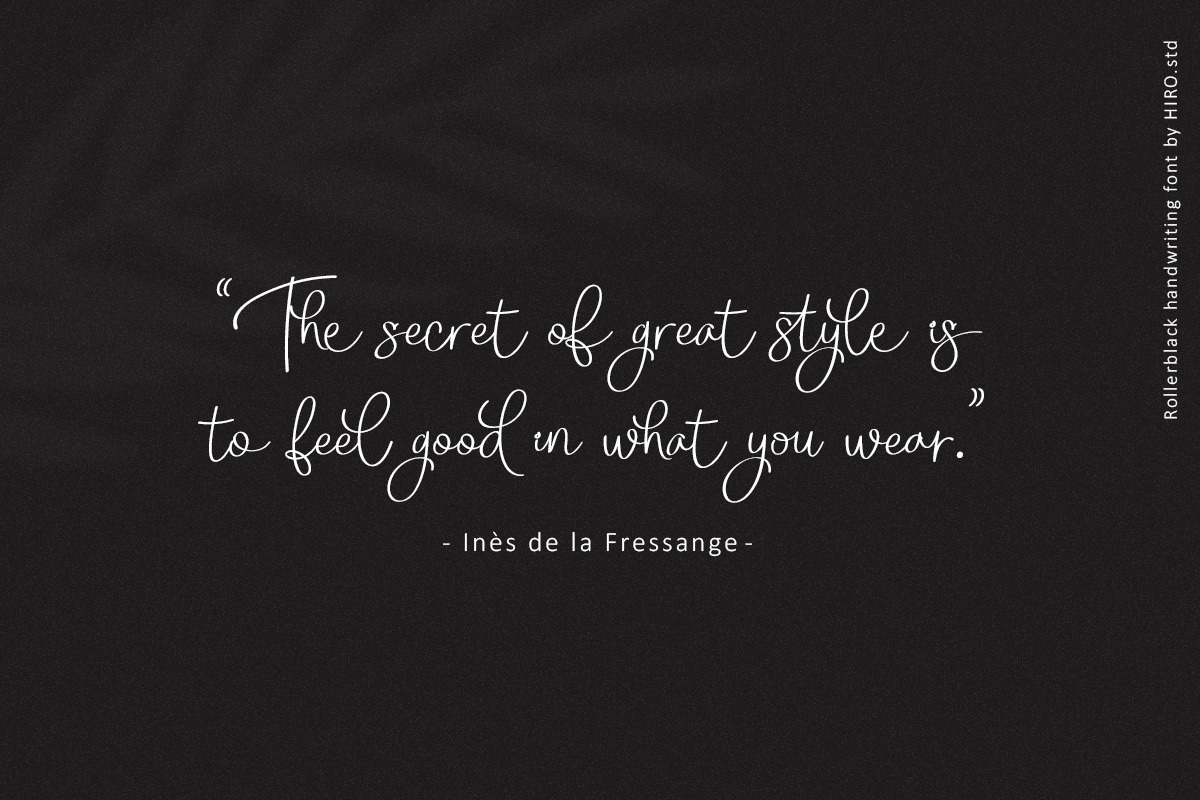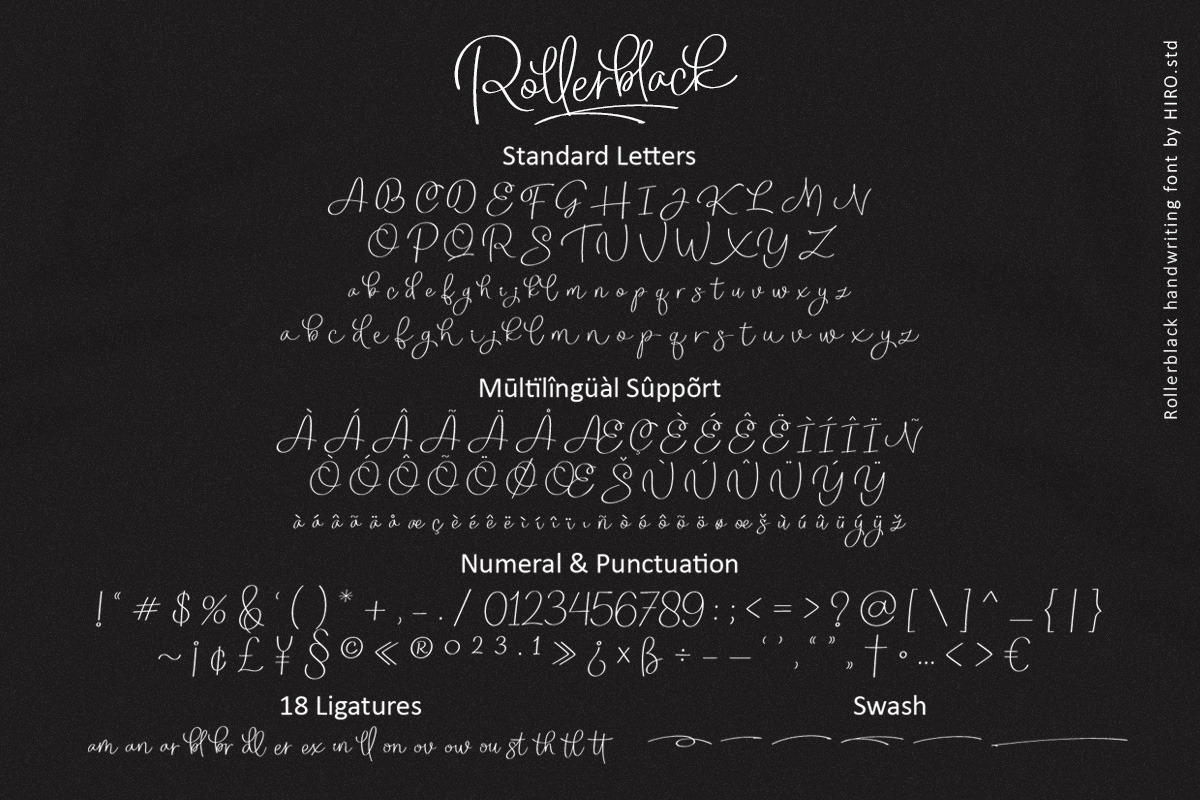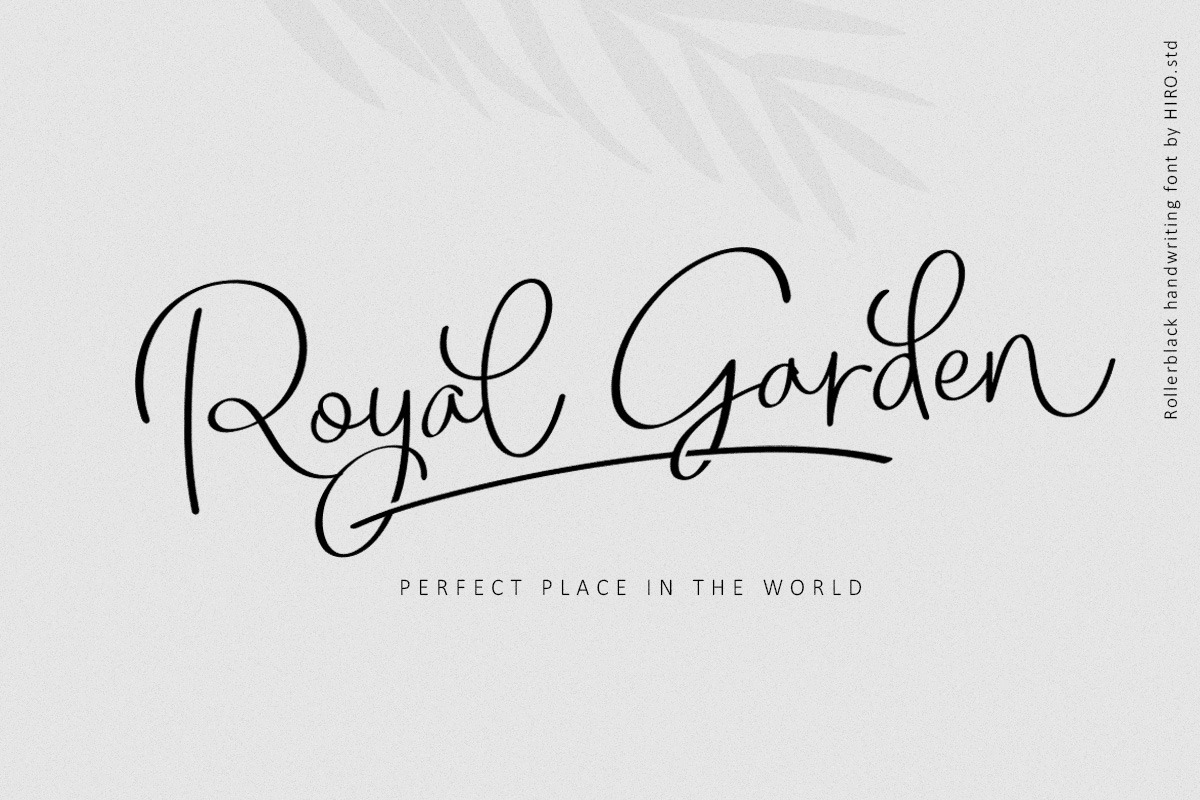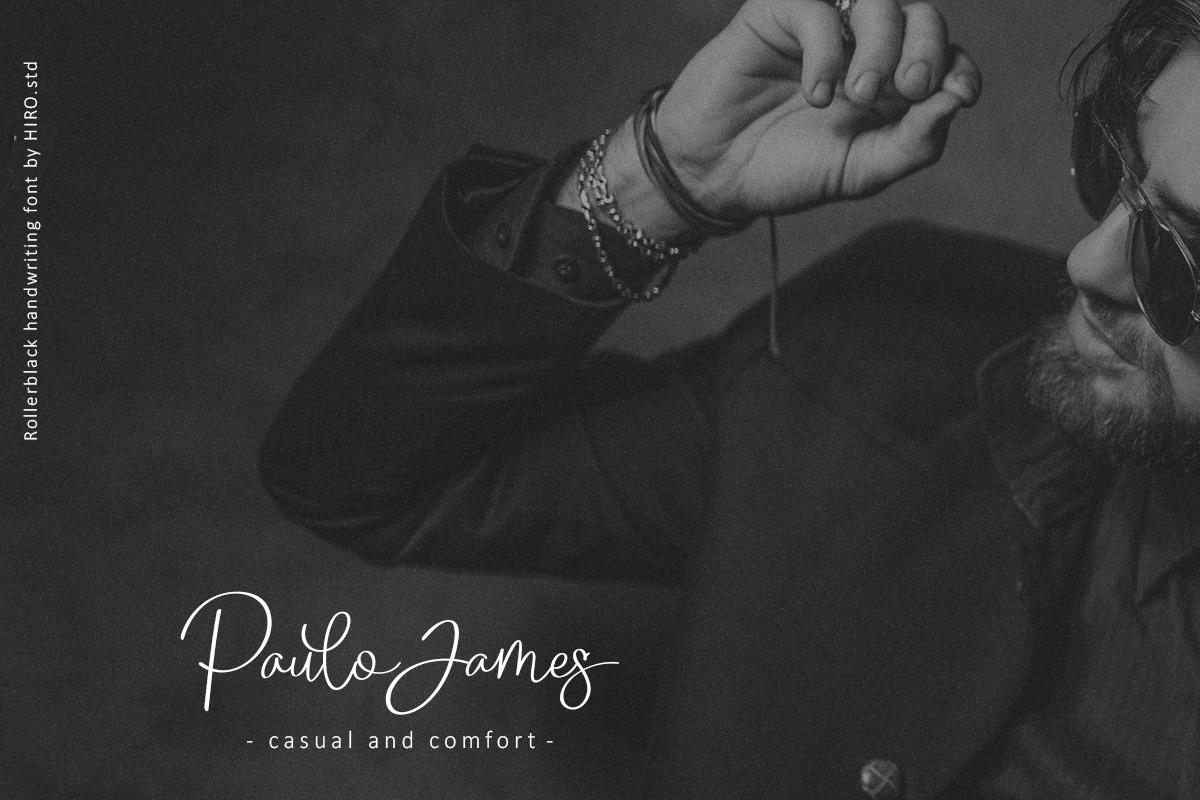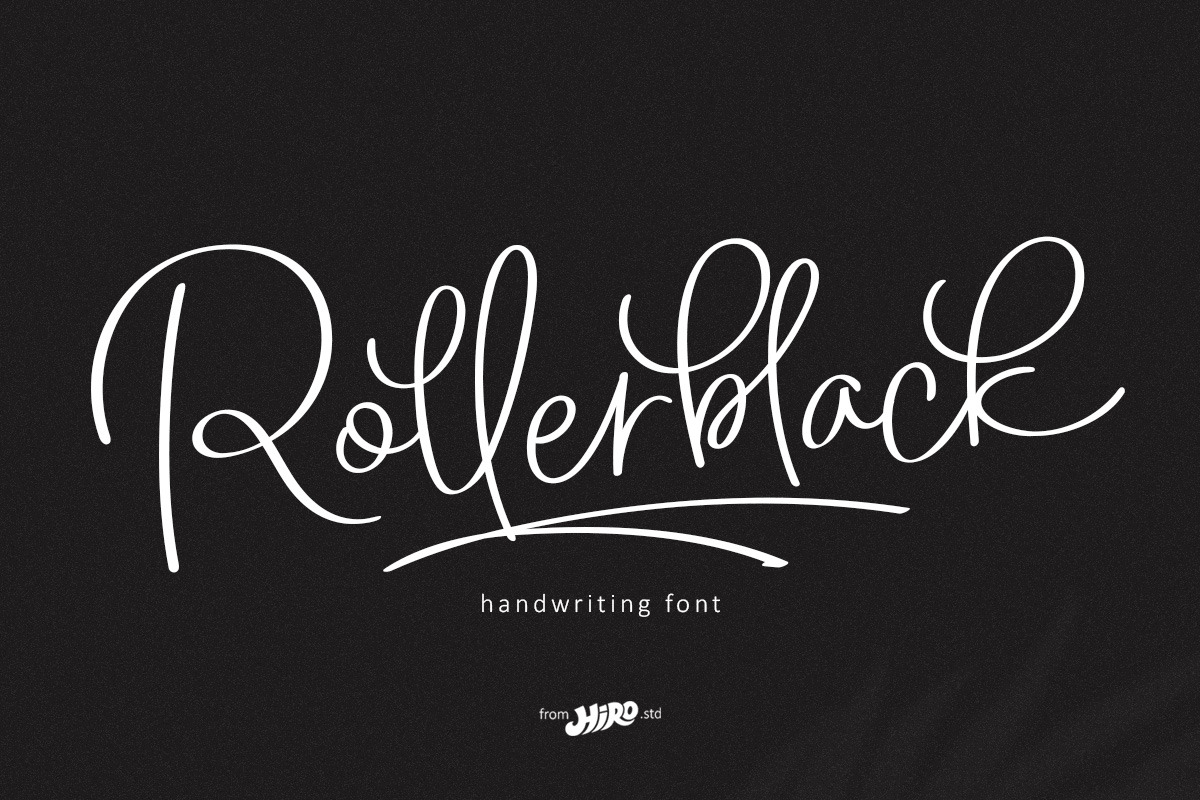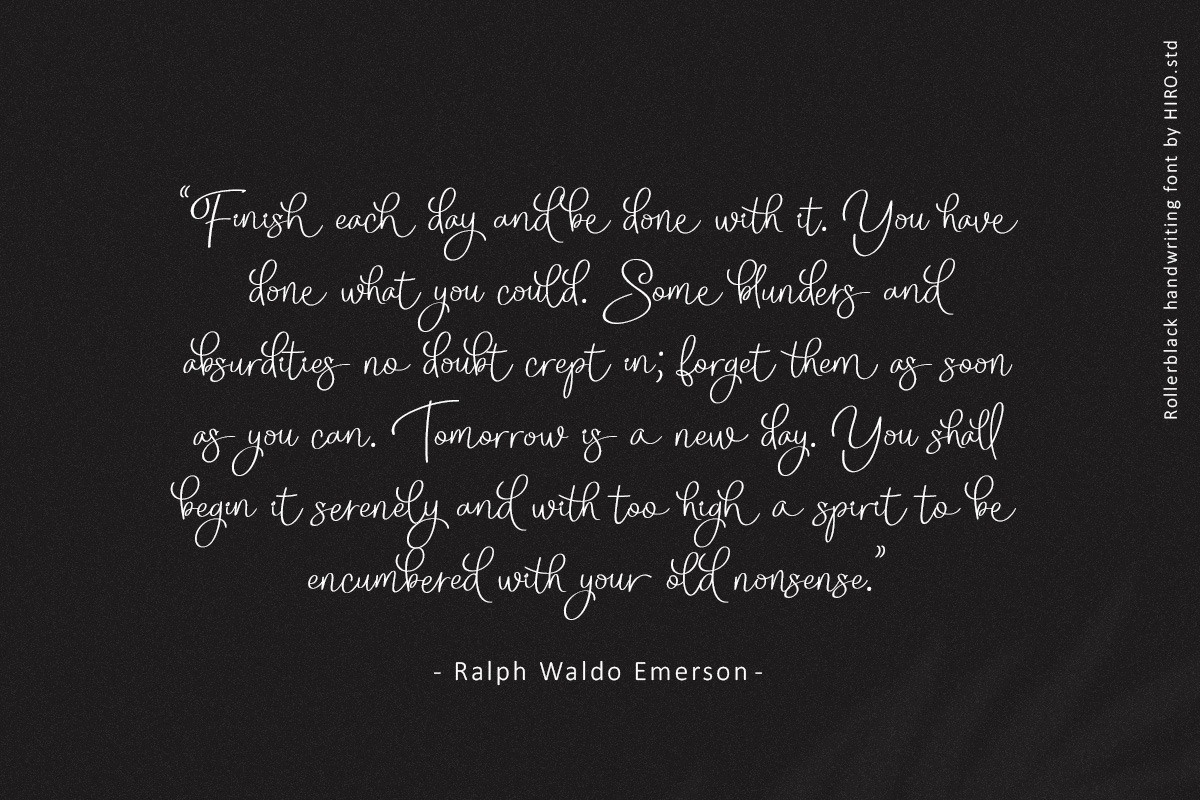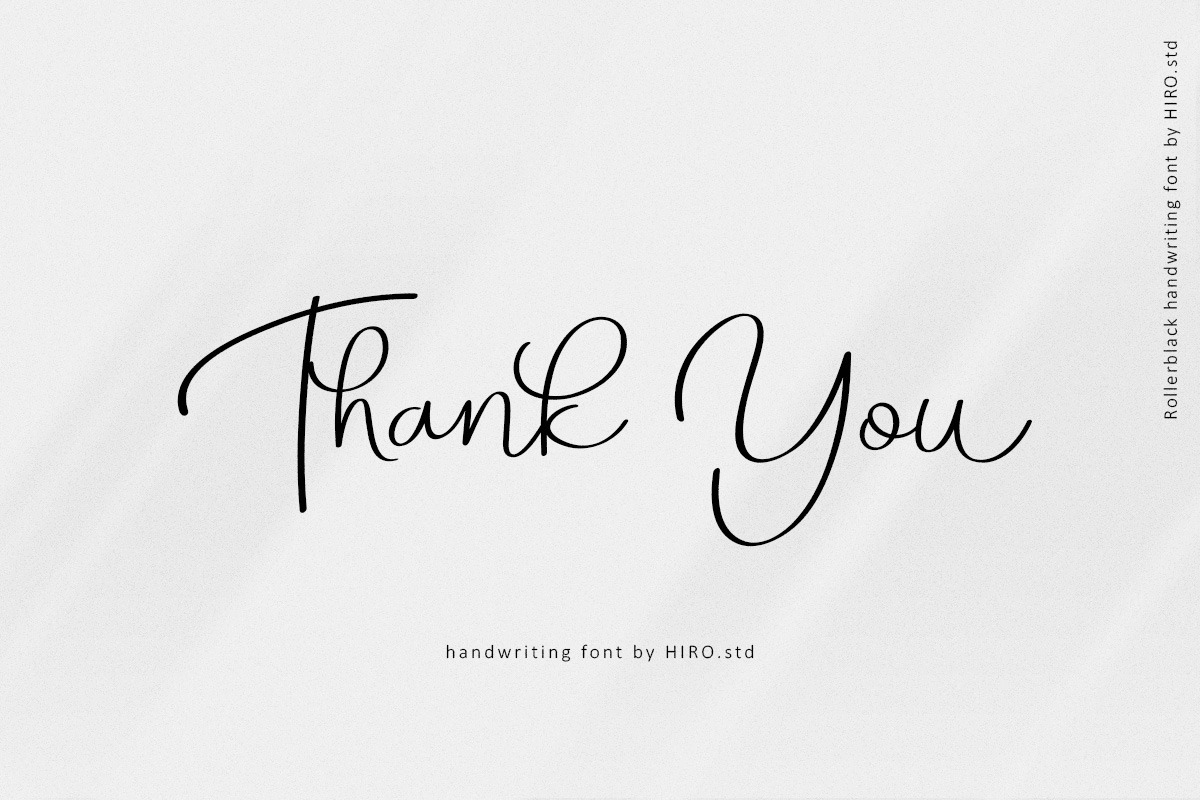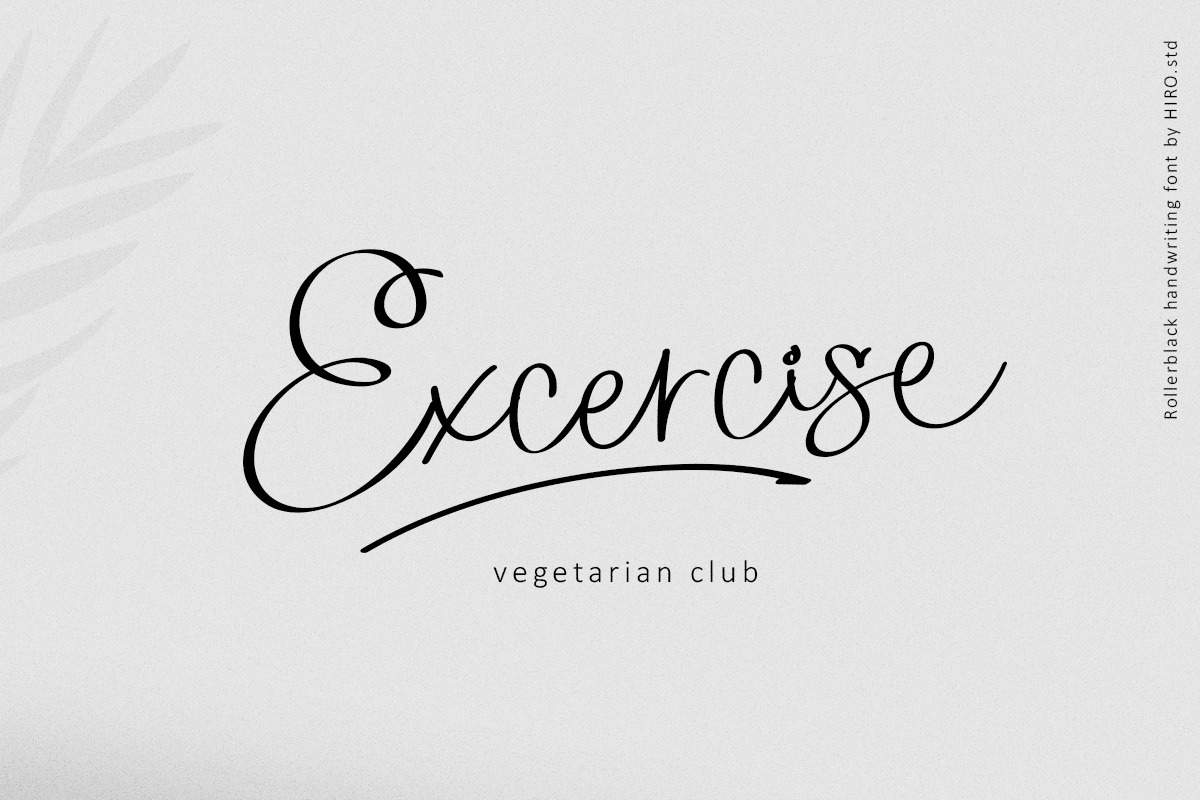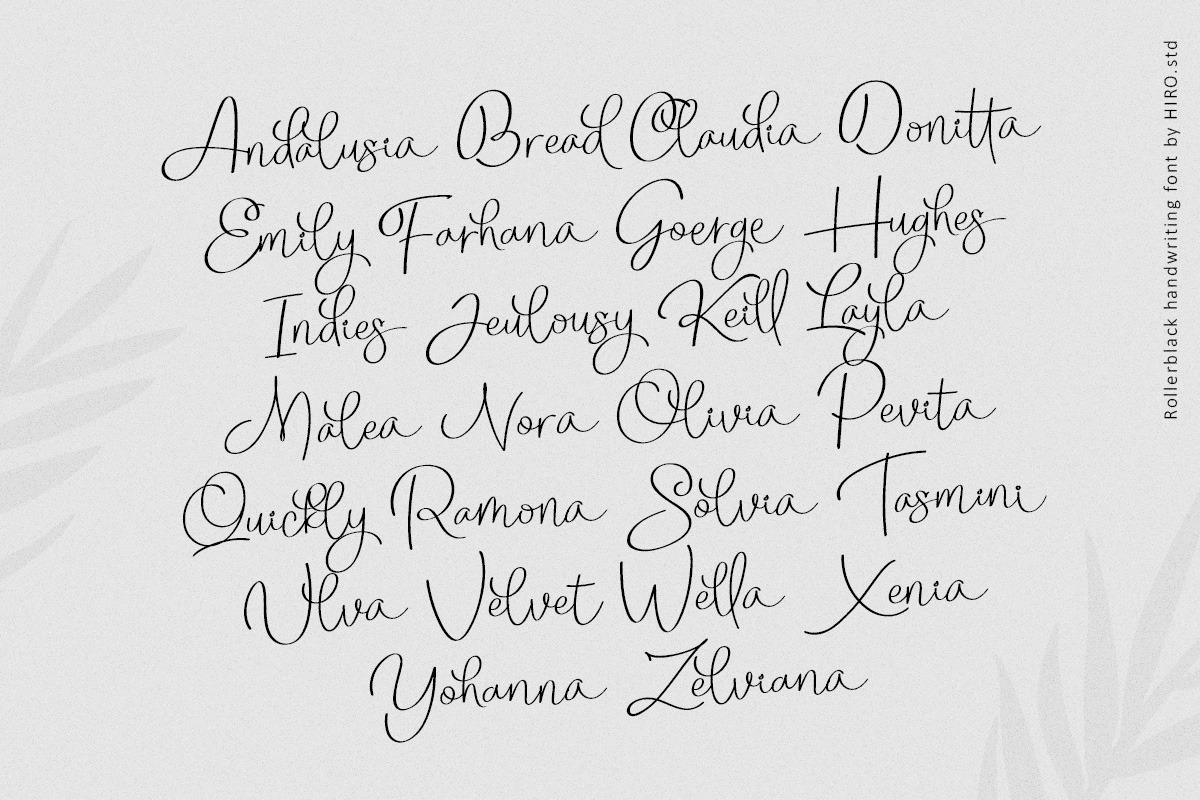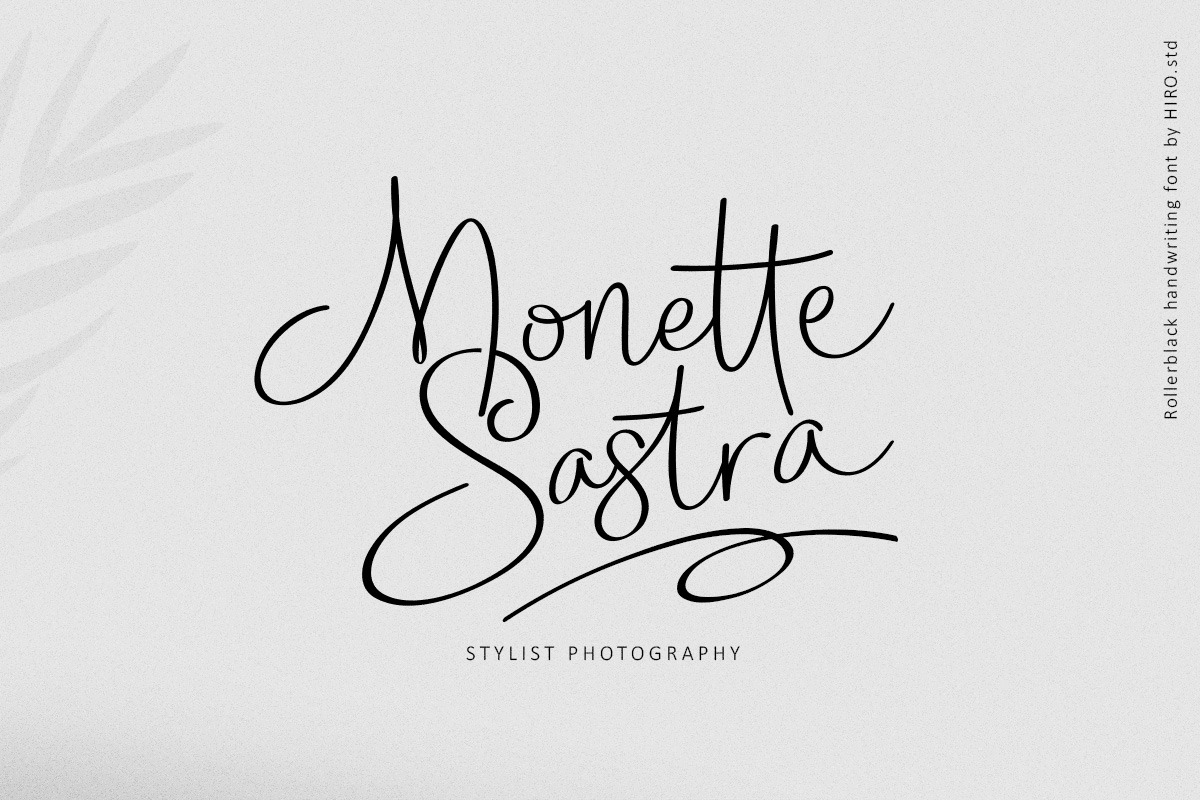
Rollerblack - Handwritten Font
Rollerblack is a handwriting font.
This font describes about semi casual, elegant, catchy, dynamic, humanist, easy to use and will bring a good harmony when the letters are connected and paired each other.
- Support Opentype Features
- Support Ligatures
- Alternate ending swash
USE Rollerblack works great in any branding, logos, magazines, apparel, wedding designs, social media posts, advertisements, product packaging, product designs, label, photography, watermark, invitation, stationery and any projects that need handwriting taste.